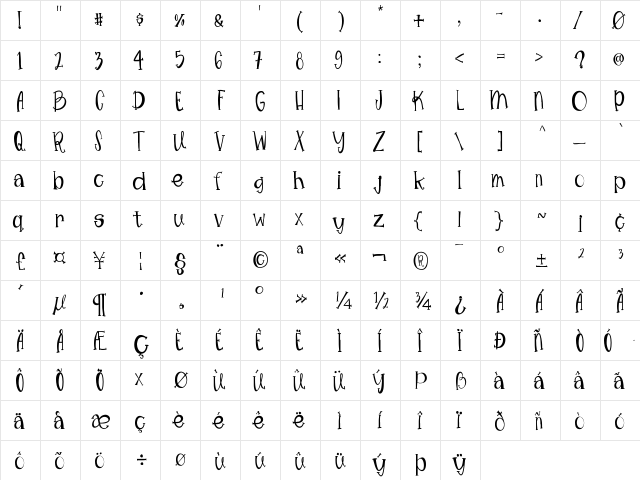
MimsyWhimsy Medium
Design Context for MimsyWhimsy Typeface
MimsyWhimsy is a composed and adaptable typeface that performs quietly and consistently across a wide range of design contexts.